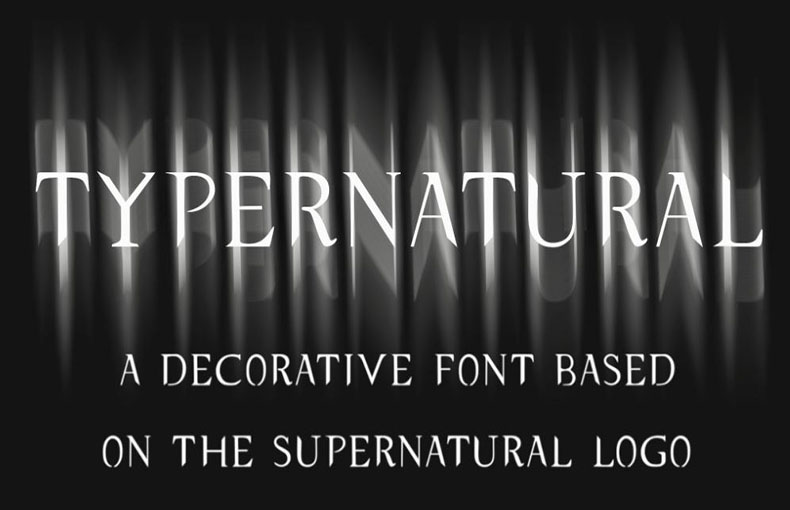
Supernatural Font: It is an American dark fantasy drama television series created by Eric Kripke. It was first broadcast on September 13, 2005, on The WB.
The series tells the story of two brothers hunting the supernatural while traveling across the country. With its eleventh season, Supernatural became the longest-running American live-action fantasy TV series.
The lettering for the title of the TV series is very similar to Supernatural Knight. It was created by Mathew Walters. That comes in gothic letterforms.
This font family comes in a single unique style along with True Type features. This single style contains 168 unique glyphs and supports 34 multilingual languages.
Font Name:Supernatural Font Family
Style:Logo, Gothic, Display
Font Designer:Mathew Walters
This display typeface can be used to create postcard designs, template designs, social media posters, banners, headers, titles, signs, comic book covers, and poster designs. This typeface is suitable for use in social media page designs, catchy name designs, general reports, and many advertising uses. This typeface works well with various Adobe applications.
What is a Supernatural Font?
The lettering for the title of the TV series is very similar to Supernatural Knight. It was created by Mathew Walters. That comes in gothic letterforms.